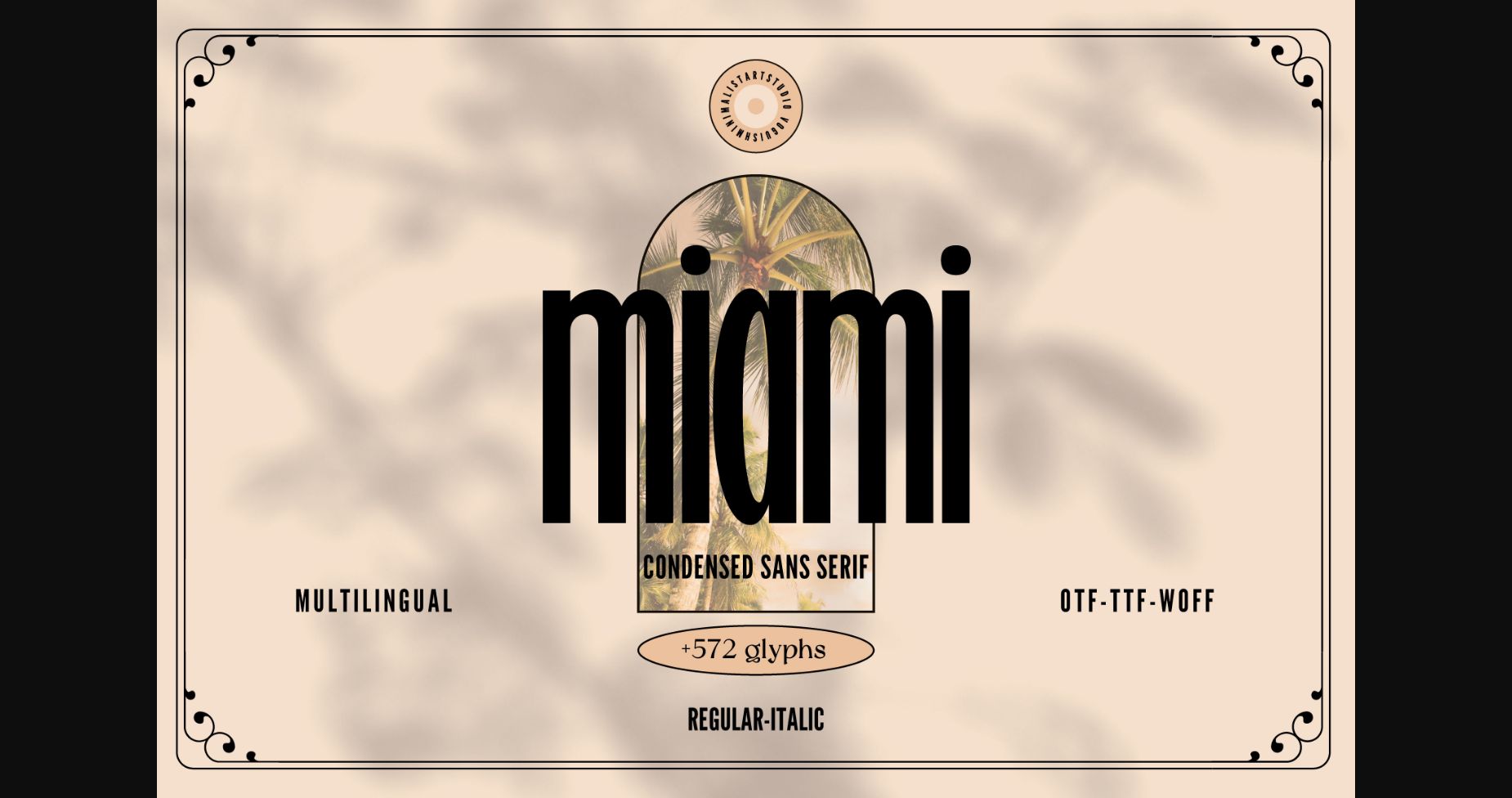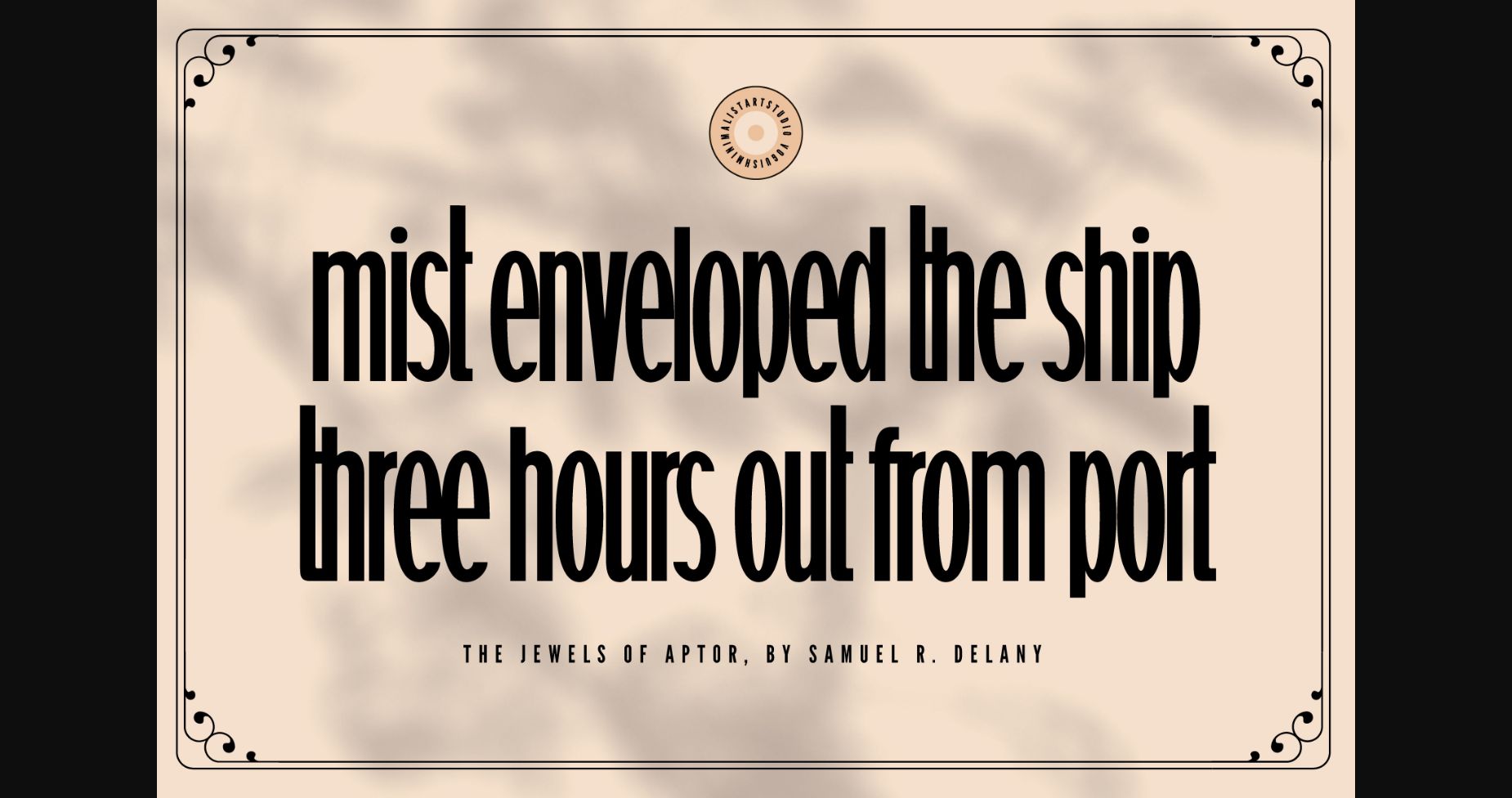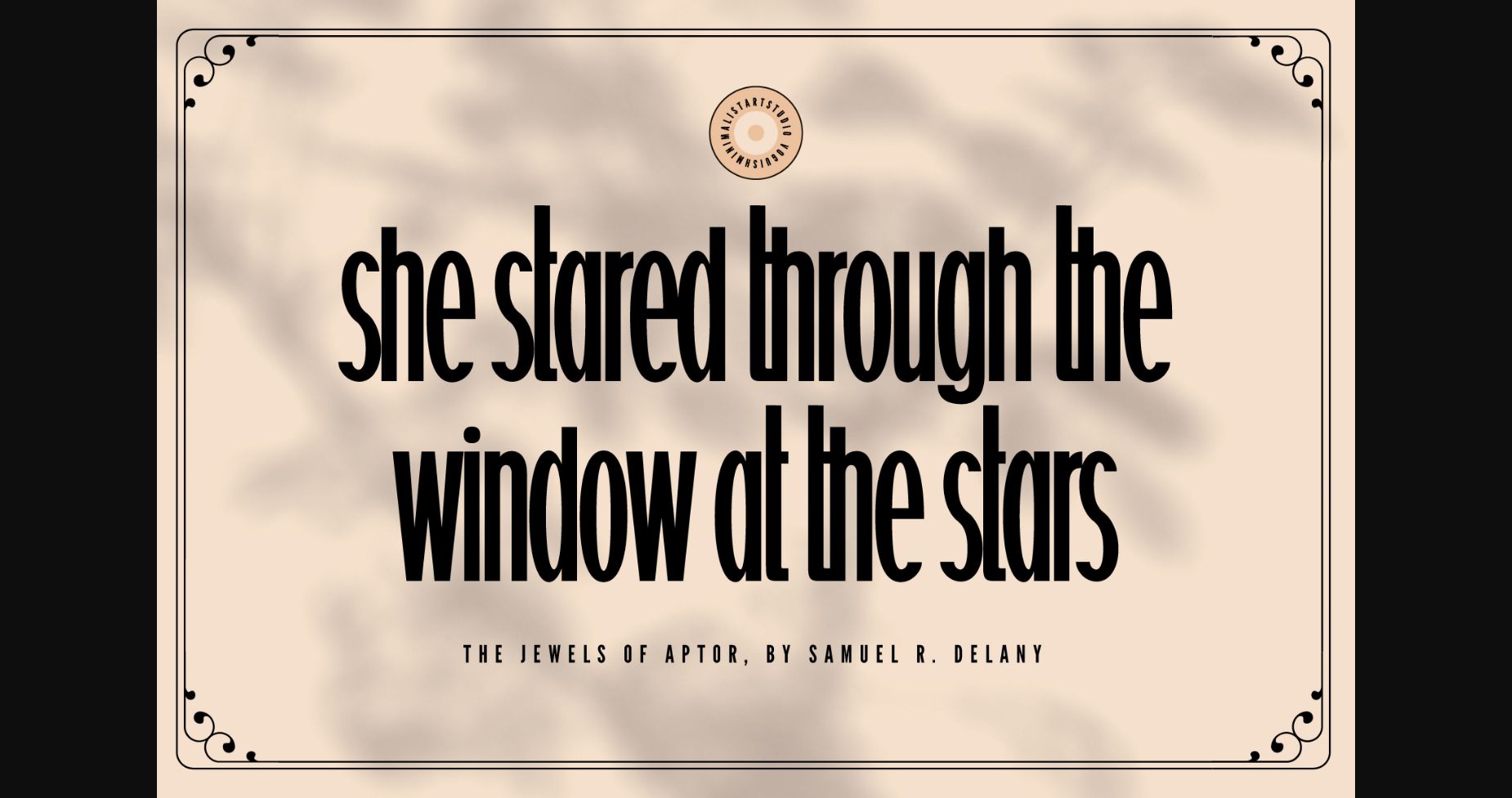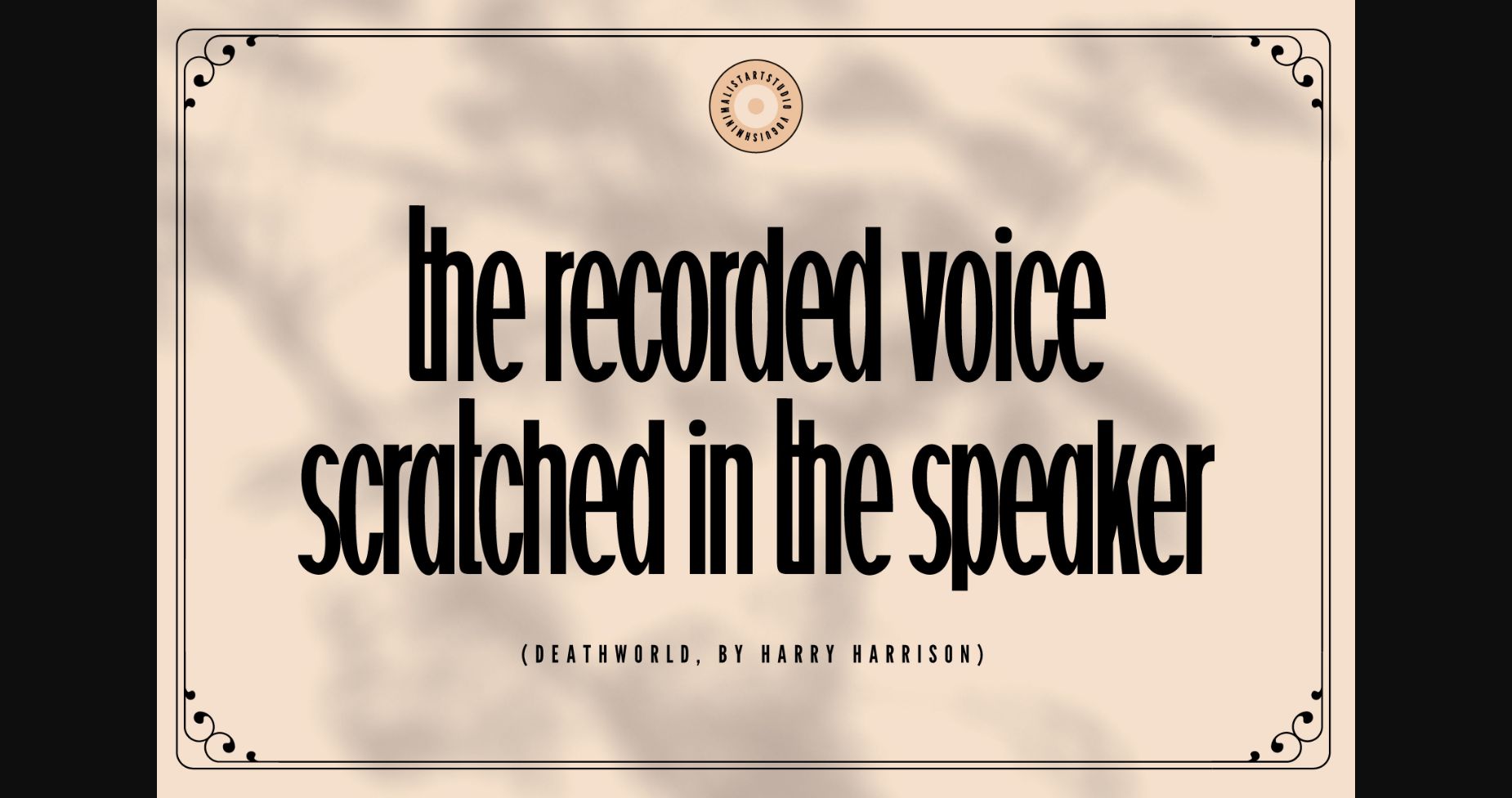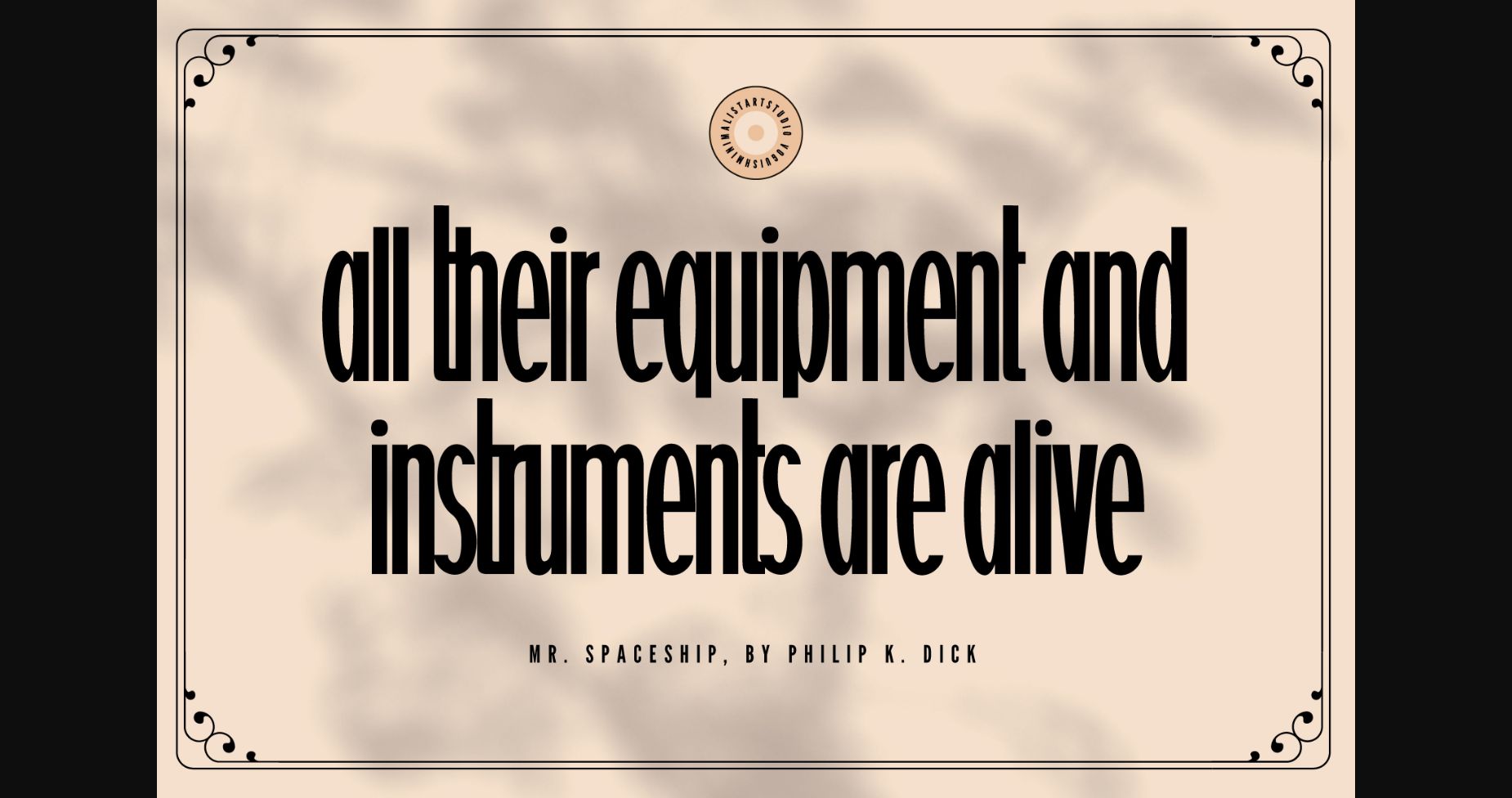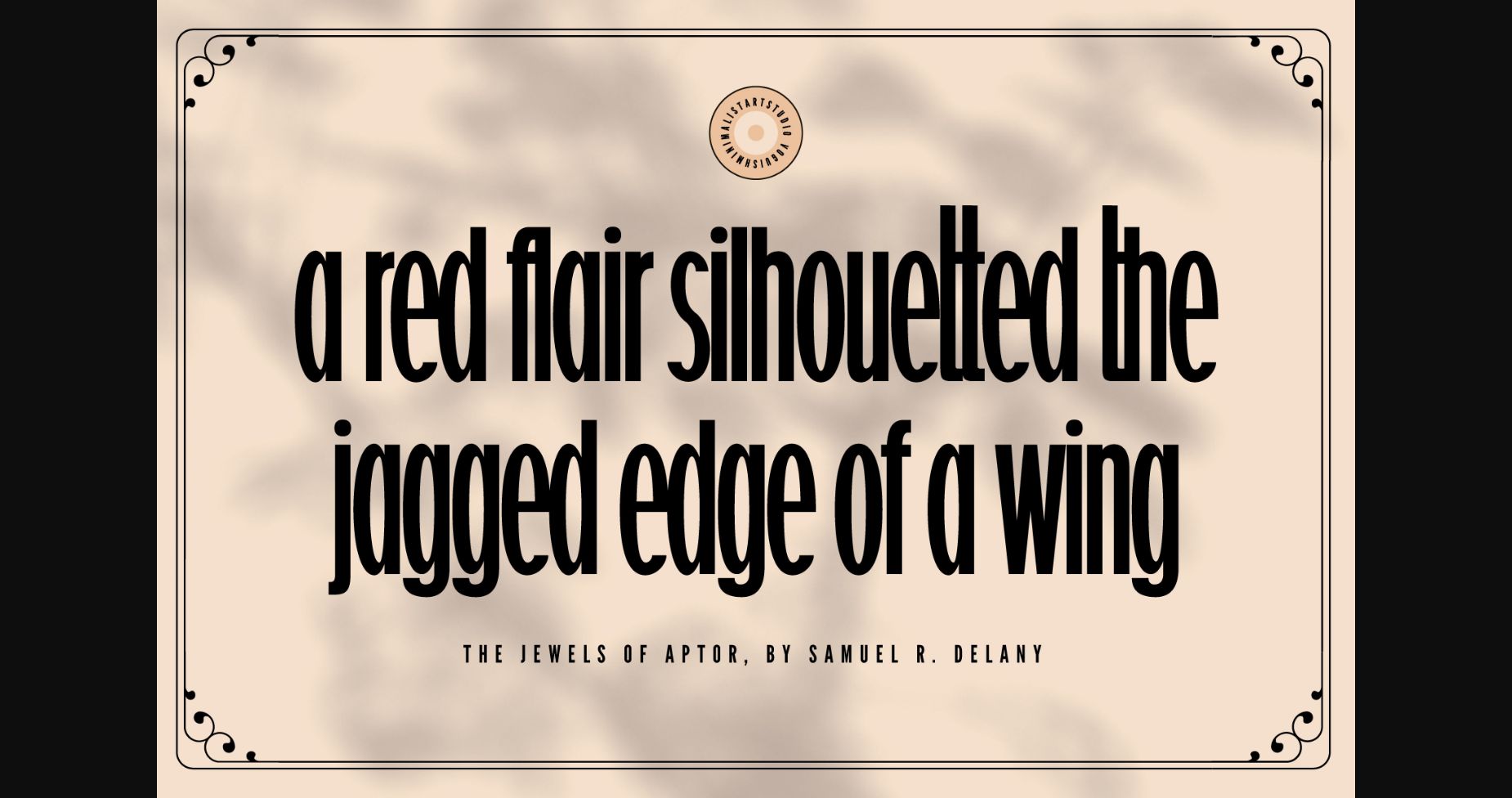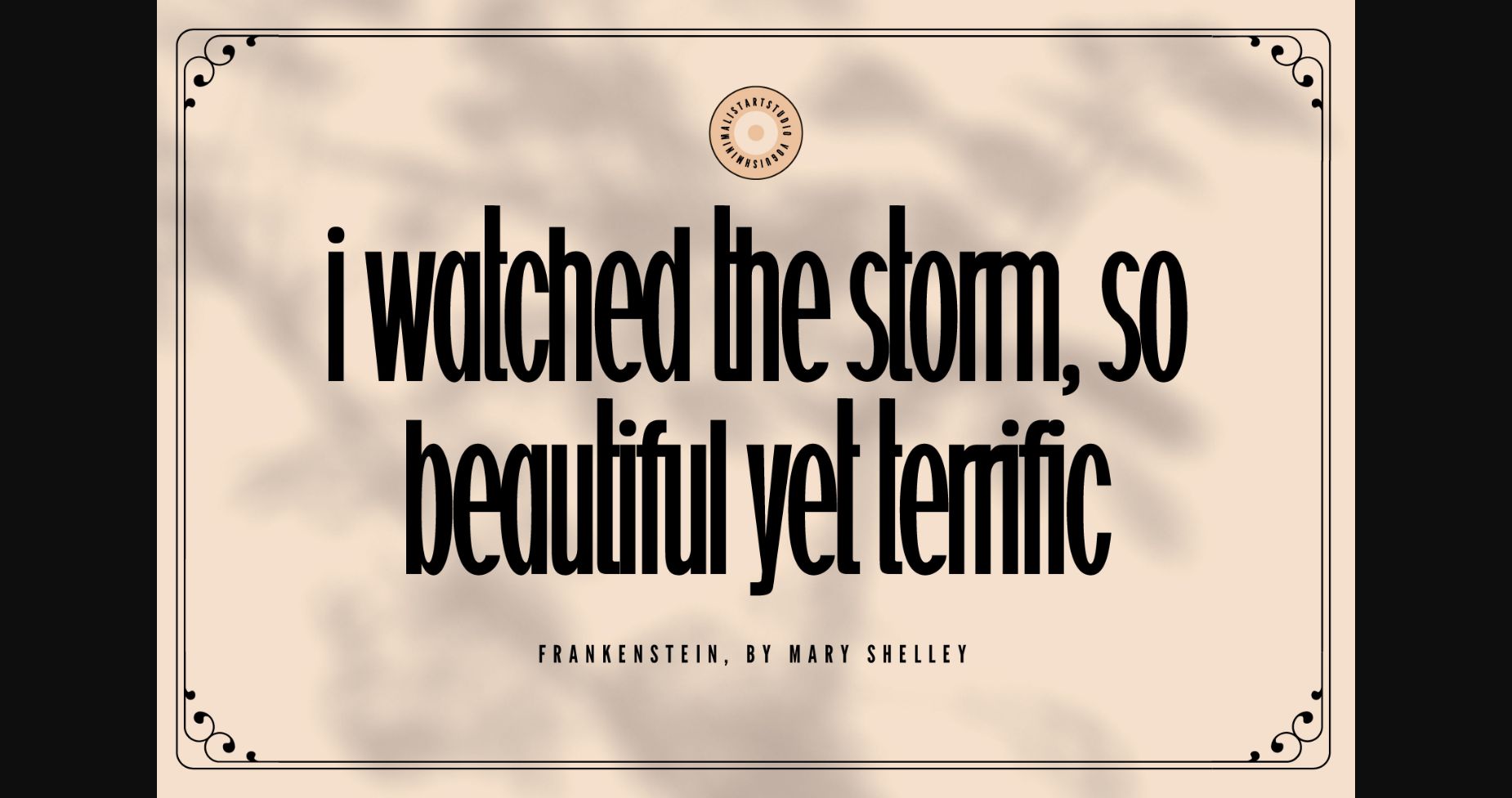
About Miami Font
Introducing Miami, the epitome of elegance and sophistication in the world of typography. This condensed and minimalist sans-serif font is the perfect choice for any design project that requires a touch of class and refinement.
Whether you’re looking to create a bold and attention-grabbing statement or convey a more subtle, understated message, Miami has you covered.